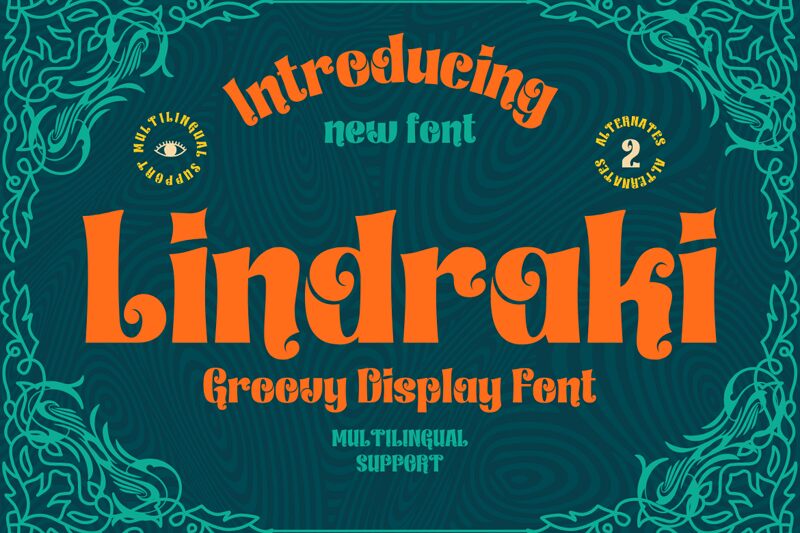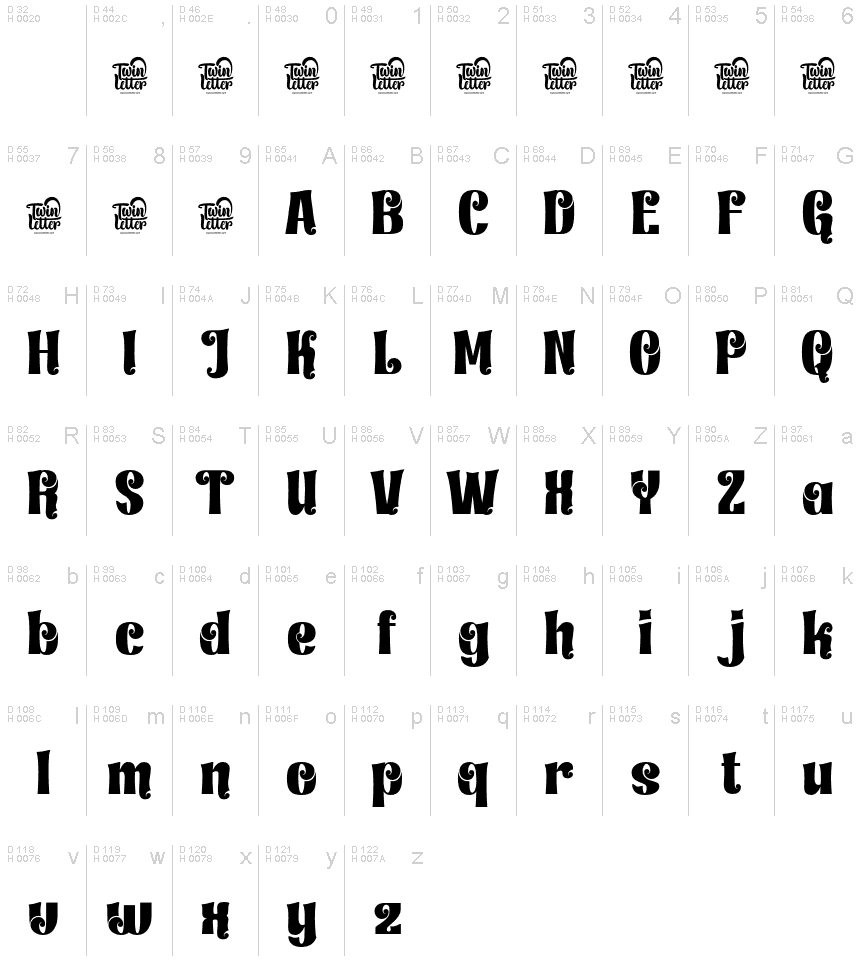
Lindraki-Regular
Unleash your creativity with Lindraki, a bold statement in the world of typography. Designed by twinletter, this groovy display font dances between retro allure and modern flair. Its chunky letterforms and playful curves evoke the spirit of the '60s and '70s, bringing a touch of nostalgia to any project. Perfect for designers aiming to inject personality into their work, Lindraki stands out on posters, headlines, and branding that demand attention.
With its distinct style, Lindraki is not just a font-it's a design asset tailored for those who dare to be different. Whether you're crafting an eye-catching logo or setting the mood for an event with psychedelic vibes, this font ensures your message is not only seen but felt with every curvaceous character. Let Lindraki transform your creative ideas into captivating visual stories that resonate across all mediums.